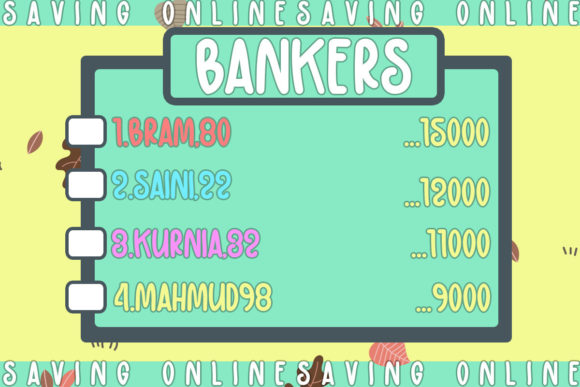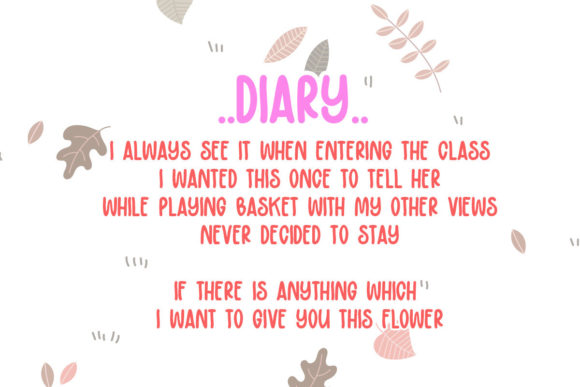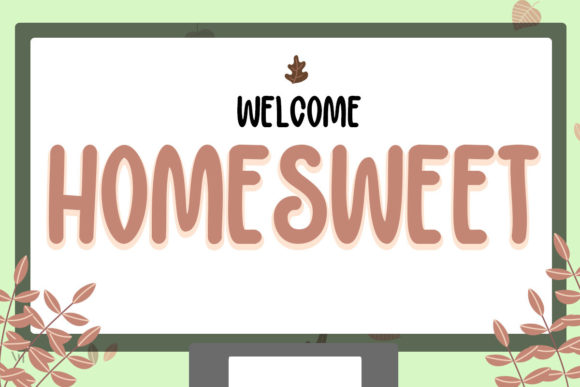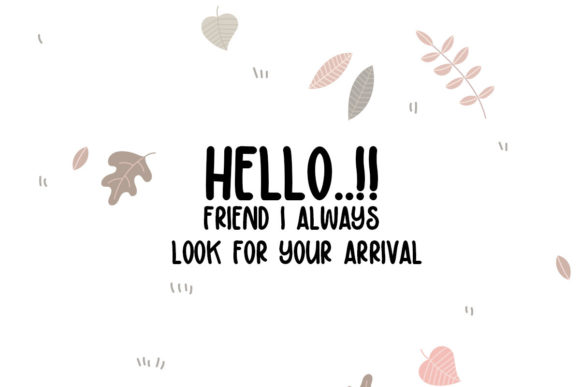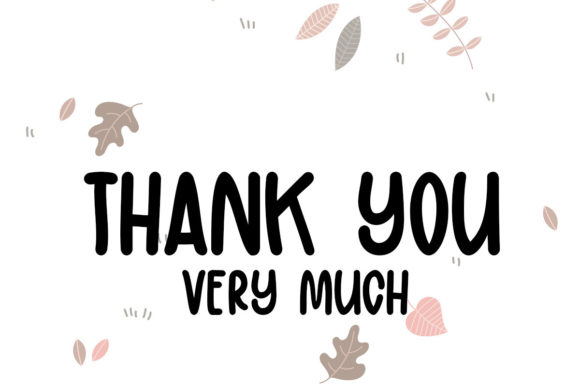
Introduction to Markerland Font
You’re sitting at your desk, staring at a blank canvas, trying to come up with the perfect design for your client’s new product launch. The clock is ticking, and your creative juices are running dry. Suddenly, you stumble upon the perfect design resource – a quirky display font that adds a touch of personality to your work. Say hello to the Markerland Font, a game-changer in the world of design.
Imagine having a font that not only stands out but also adds a fresh and contemporary touch to your designs. The Markerland Font is more than just a design element – it’s a way to express your creativity and make your projects truly unique. With its transparent background and high-quality design, this font is a must-have for any designer looking to take their work to the next level.
Key Features of Markerland Font
- Unique, hand-drawn design style with a transparent background, making it perfect for creative projects that require a personal touch.
- High-resolution font, suitable for use at large sizes, making it perfect for titles, headings, and other prominent text elements in your design.
- Includes a range of characters, including uppercase and lowercase letters, numbers, and punctuation marks, making it a versatile design resource.
- Perfect for use in a variety of creative projects, from graphic design and digital art to craft and scrapbooking, the Markerland Font is a valuable addition to any design collection.
Honest Review: Markerland Font
I recently had the chance to try out the Markerland Font, and I must say it’s been a game-changer for my creative projects. As a designer, I’m always on the lookout for high-quality design resources that can elevate my work.
One of the things I love about the Markerland Font is its versatility. It’s perfect for creating a wide range of designs, from logos to posters, and even digital artwork. The font is highly customizable, and the transparent background option is a huge plus for me.
- High-quality design that’s perfect for creative projects ✨
- Transparent background option for added flexibility ✨
- Only available in a limited range of weights and styles ⚠️
- May not be suitable for smaller text sizes due to the bold, marker-like aesthetic ⚠️
Overall, I’m thoroughly impressed with the Markerland Font. It’s a fantastic addition to my design toolkit, and I’m excited to see how it will enhance my future creative projects.
Markerland Font
Markerland Font is perfect for creative projects that require a unique and eye-catching design. It’s ideal for branding, marketing materials, and social media graphics. With its high-quality design and transparent background, Markerland Font is a valuable design resource for any project.
Tips for Getting the Most Out of Markerland Font